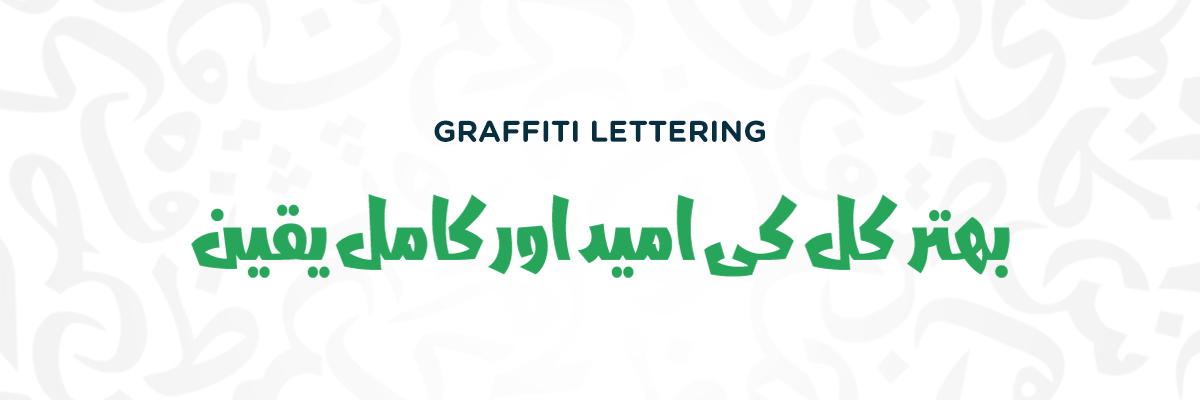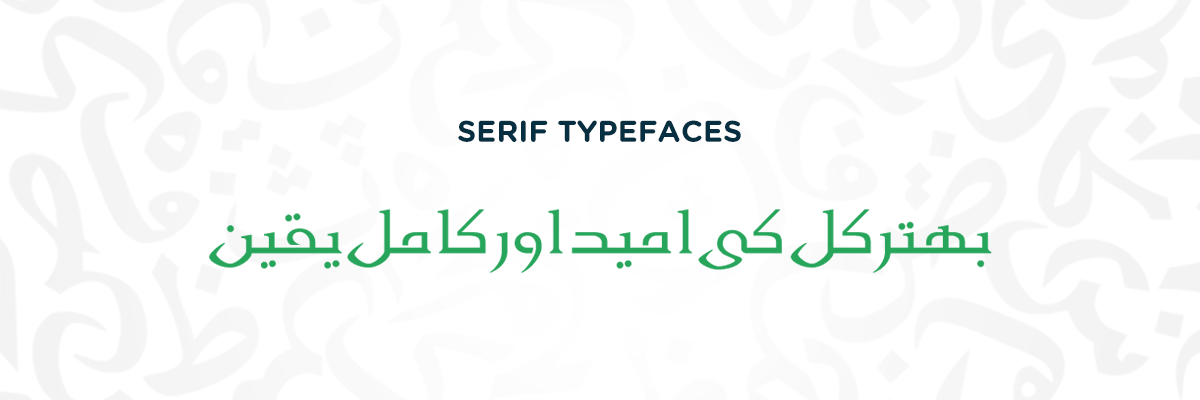
In Urdu script, calligraphy is referred to as an ancient art form, used to write sayings, verses, titles, or names. Urdu calligraphy has a rich and diverse history, which has transformed and evolved over several years. Ranging from its roots in old China to its current variations, this art form has not only survived the challenges of time but has also adapted and flourished. When Islam gained prominence in the seventh century, the evolution of Urdu calligraphy became significant as the script was used to translate the Quran and other religious messages. Moreover, Urdu calligraphy serves as a reminder of people’s captivation with the written word. From ancient symbols to modern calligraphy, the art form has advanced while maintaining its allure. Below, we will explore the beautiful history of Urdu calligraphy and examine how it has changed over the decades. Read more about 12 Best Urdu Calligraphy fonts, perfect to add elegance into your designs.
Origins of Urdu Calligraphy
Since we are learning the evolution of Urdu calligraphy, its important to learn its roots first. Urdu calligraphy has its roots in the Arabic and Persian calligraphic traditions. Originally, this language was evolved from these two languages and were adopted by the Indian subcontinent by the Turkish and Persian Turkic forces during the eleventh century. The Persian script, specifically known as the Nastaliq style was introduced for writing Urdu scripts in the South Asian countries. Categorized by its cursive nature, this style became the main script for Urdu calligraphy, allowing people for the beautiful as well as intricate designs that are features of Urdu calligraphy at present. Moreover, Urdu calligraphy is a crucial aspect of Islamic art. The progress of calligraphic styles such as Naskh, Kufic, and Thuluth in Arabic provided the base for later adaptations in Urdu and Persian.
History of Urdu Calligraphy
As Urdu calligraphy has a rich legacy or history from the past many centuries, with roots in the Arabic and Persian. That’s why the growth of Urdu calligraphy is closely associated with the development of the Urdu language. During the Mughal period, Urdu calligraphy was at its peak and calligraphers played a vital role in daily communication, from writing official announcements to writing books and manuscripts. With the beginning of innovation, this art form started to decline. But initiatives such as Project Kitabat have renewed this art form, making efforts in protecting & promoting Urdu calligraphy. Current calligraphers such as Qamar Dagar have played with lines, letters, colors, and strokes, making their own style. Calligraphers have tested with combination of different scripts and styles, like mandala art or Urdu calligraphy, to create beautiful designs.
A Look into the Evolution of Urdu Calligraphy
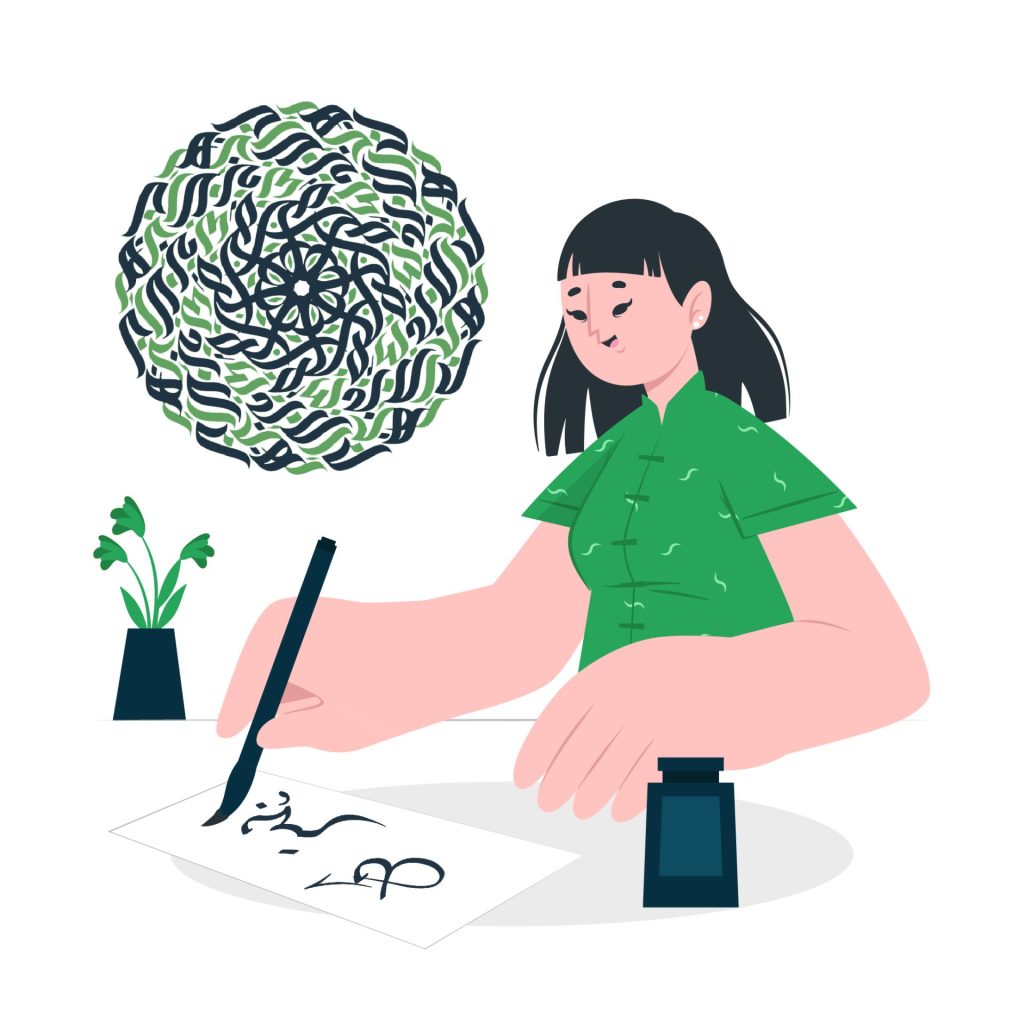
When cultures and civilizations thrived, the evolution of this calligraphy begins, adapting to different languages as well as aesthetics. Urdu typeface has become a crucial art form in the Islamic world because of the ban on figurative art. Afterwards, it resulted in the development of complex scripts such as Thuluth, Naskh, and Diwani, often utilized to decorate manuscripts and mosques. In Europe, this art form progressed on another level during the ancient times. Transcribers accurately created illuminated manuscripts, adorning them with complex letterforms and bright colors. Furthermore, the Uncial and Gothic scripts were specifically well-known during this period. Revived Europe witnesses the rise of Copperplate and Italic scripts, which showed the intellectual and artistic development of the time.
Some Popular Styles of Urdu Calligraphy
With the growth of Islamic culture, Urdu script acquired popularity as a means for transcribing the Quran as well as various religious texts like we discussed earlier. It led to the formation of an array of complex styles of calligraphy, each with its exclusive characteristics. Different styles, for example, Thuluth, Naskh, Nastaliq, Kufic, and Diwani became pillars of Urdu calligraphy, with every style exhibiting a different cultural and historical period.
| Calligraphic Styles | Description |
|---|---|
| Thuluth | The curving lines of Thuluth often decorated the mosques walls, reflecting the magnificence of Islamic architecture. |
| Naskh | Popular for its readability became the favorite style for daily writing and manuscripts. |
| Nastaliq | It is a Persian calligraphic style. Nastaliq style has long horizontal and short verticals strokes. |
| Kufic | It was the original Arabic script utilized at the period of the Prophet Mohammad (S.A.W). Kufic is rigid and linear style. |
| Diwani | It is an Ottoman Turkish style. Diwani is the cursive, luxurious style of Arabic calligraphy established during the era of the ancient Ottoman Turks. |
Current Trends in Urdu Calligraphy
Modern Urdu typography is a latest style that has progressed from traditional calligraphic forms such as Spenserian and copperplate scripts. It blends elements from these unique styles while adding its innovative twist, leading to something that seems familiar yet latest at the same time. Modern calligraphers frequently utilize bolder strokes than their ancestors did, giving their projects better impact visually. This sort of calligraphy is often utilized for tasks such as logos or invitations where a more modern appearance is desired.
Most Popular Styles in Modern Urdu Calligraphy
Calligraphy is evolving with the changing design needs and trends. Designers like exploring and creating fonts by using different techniques and styles. Such hybrid fonts are perfect for modern designs, to add an identity and artistic expression to your art. Some of the most popular styles in modern Urdu calligraphy are as follows:
Brush Lettering
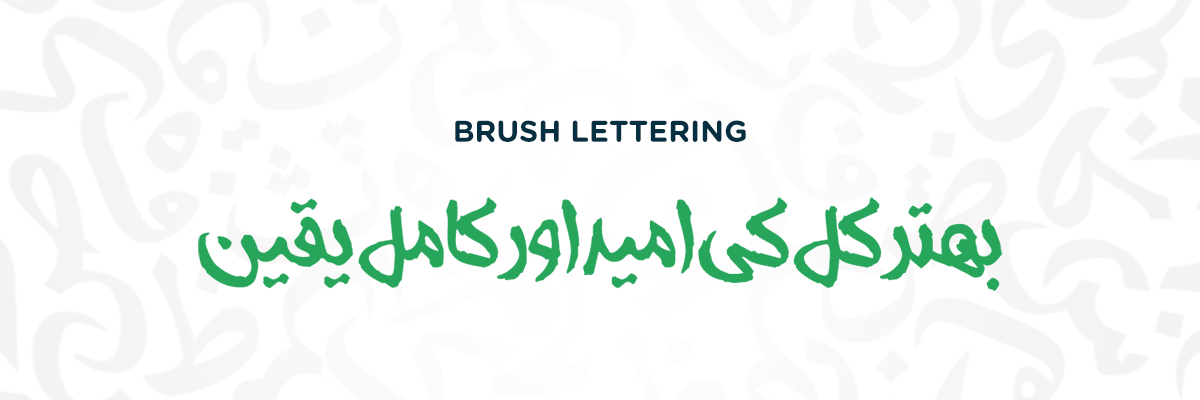
Brush lettering utilizes a unique brush pen instead of the old writing instrument. It develops a striking effect by permitting the calligrapher to make letters that switch between thick and thin lines. These comprise paper, sketchbook, brush pens, and ink.
Bounce Lettering
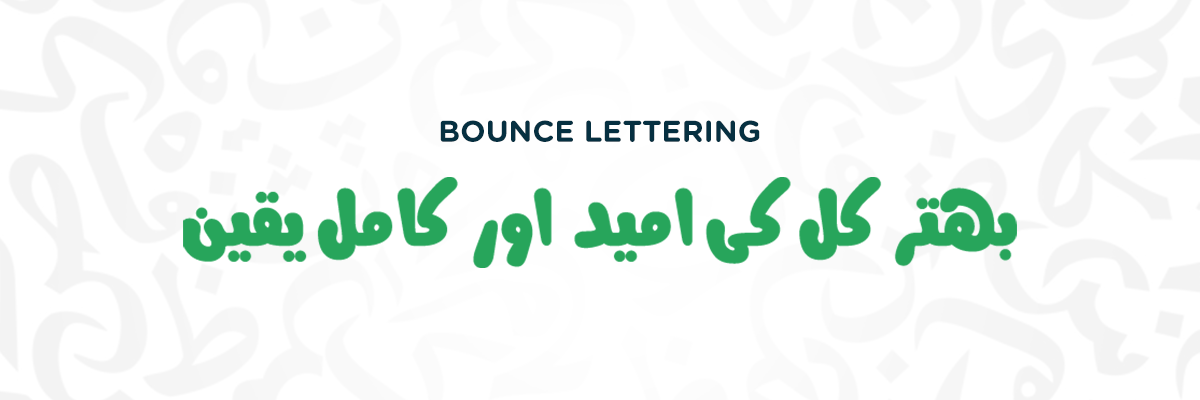
A style of calligraphy that seems to change up and down. Bounce lettering is also called bouncing or jumping letters because the pen strokes seem to be bouncing off the paper as they are being transcribed. It can be used for a wide range of purposes like posters, signs, wedding invitations, or even logos. Moreover, check out our collection of 11 best Tiktok Urdu Font to make fun and energetic content.
Final Words
Wrapping up, Urdu calligraphy is a major art form that has been utilized since decades to create attractive projects. As compared to the ancient times, Urdu typography has evolved so much today. At present, calligraphers have a variety of fonts styles to select from, each with their individual features and properties. Whether calligraphers want to enhance the visual appeal of their projects or give them a contemporary look, modern-calligraphy offers something for everybody. To begin with Urdu calligraphy, it is very important to start with an easy style and choose the best typeface for it.